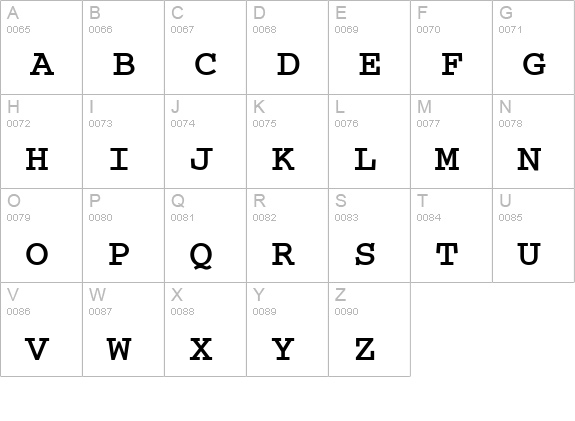
Courier BOLD Font Details
Courier BOLD is a strong, high-contrast variant in the Courier typeface family \xE2\x80\x94 well suited to headlines, attention-grabbing titles, and strong calls-to-action.
Courier BOLD font is a timeless and classic typeface that exudes professionalism and reliability. Its strong and bold strokes make it ideal for conveying a sense of authority and confidence in any design project. Whether used for print materials, digital content, or branding, Courier BOLD font commands attention and ensures clear communication. The best part? Courier BOLD font is available for free download at FontsMarket.com. This means you can easily access this versatile and impactful typeface to enhance your projects without any cost. Don't miss out on the opportunity to elevate your designs with the bold and striking Courier BOLD font, now freely available for download.